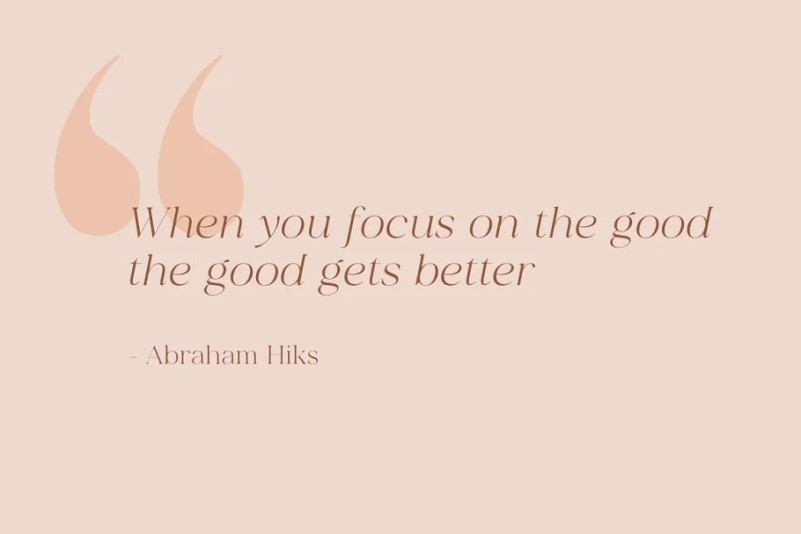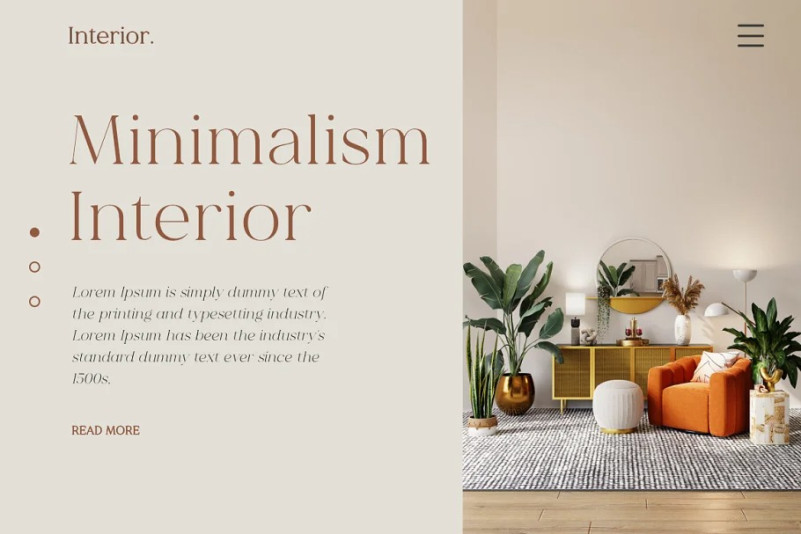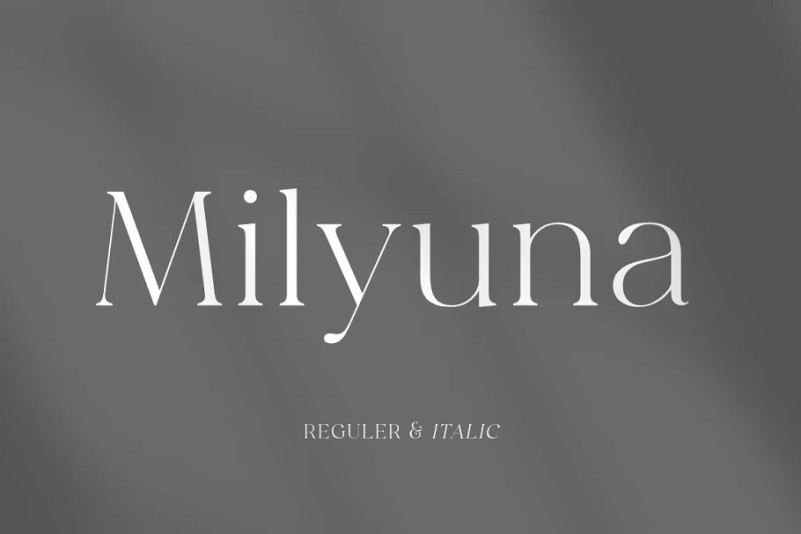
Milyuna Font
Milyuna Serif Font is classic and stylish serif with high contrast. We made two different styles Regular and Italic which is suitable any purpose, such as heading, bussines card, quotes, or invitations.